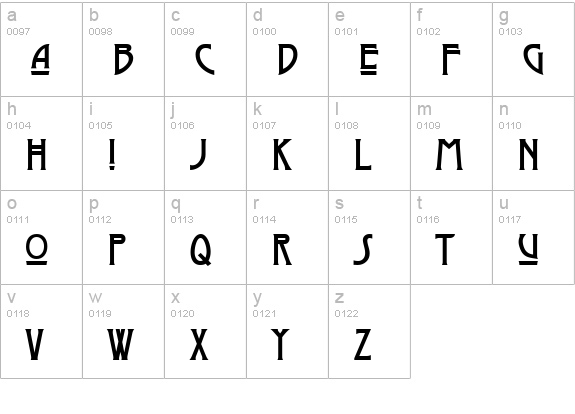
Moderno Three Font Details
Moderno Three font is a stylish and contemporary typeface designed for modern design projects. Its clean lines and geometric shapes give it a sleek and sophisticated look that is perfect for a wide range of applications. The font features a unique balance of elegance and simplicity, making it versatile and eye-catching. What sets Moderno Three font apart is that it is not only visually appealing but also free to download. This means that you can elevate your designs without breaking the bank. You can easily access and download Moderno Three font at FontsMarket.com, where you can explore a wide selection of high-quality fonts for your creative projects. Whether you are working on branding, packaging, web design, or any other creative endeavor, Moderno Three font is a fantastic choice that will add a touch of modernity and sophistication to your work. Download it for free today and see how this stylish font can enhance your designs.